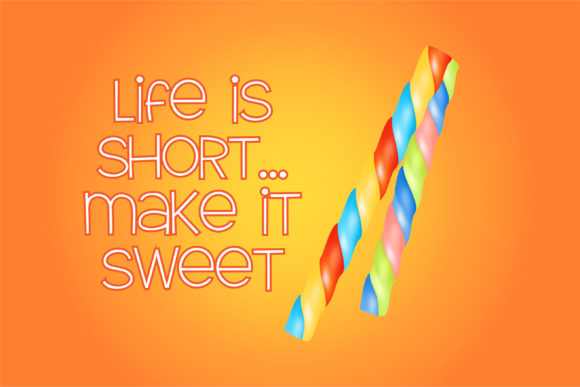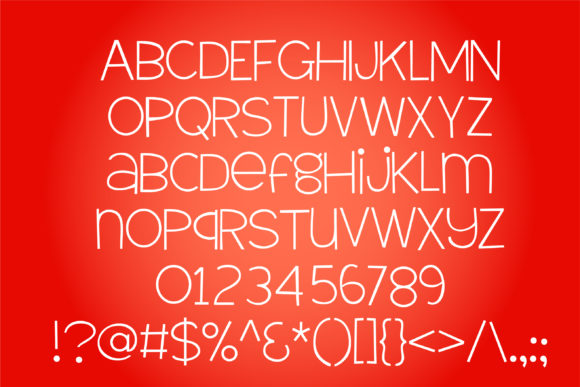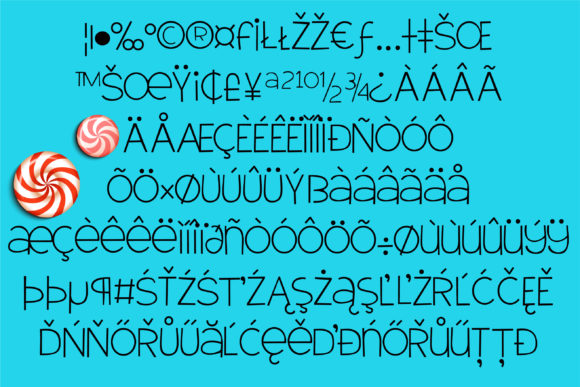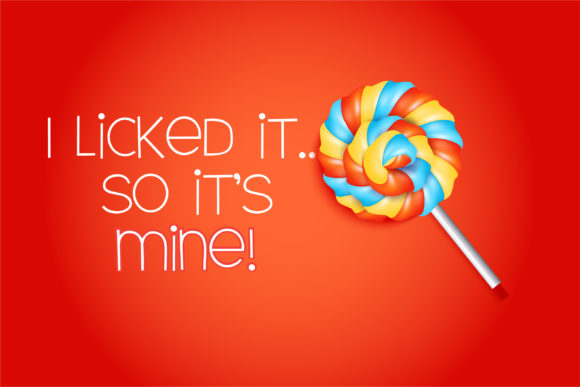
HomeScript FontsRazzle Cane Lite Font Script Fonts Razzle Cane Lite Font FacebookXPinterestWhatsApp Razzle Cane Lite Font Poster 2 Razzle Cane Lite Font Poster 3 Razzle Cane Lite Font Poster 4 Razzle Cane Lite Font Poster 5 About Razzle Cane Lite Font Razzle Cane Lite is a slightly whimsical sans serif font. Great for a variety of creative projects! DOWNLOAD ON CREATIVE FABRICAThis font is sold and delivered by Creative Fabrica. Font Canyon may earn a commission if you buy through this link. People also explored Yuwadee Lf Font Monogram Floral Font Hello Old Friend Font Heatstroke Font Cupcakes School Font Jumpheart Font Heronymous Kopos Font 355 0 TagsRazzle Cane Lite Font Previous articleBunny Honk FontNext articleCuff and Link Font LEAVE A REPLY Cancel reply Comment: Please enter your comment! Name:* Please enter your name here Email:* You have entered an incorrect email address! Please enter your email address here Website: Save my name, email, and website in this browser for the next time I comment. Personal Use Free BD Geminis Personal Use Free Read more about this font Peristiwa Font Personal Use Free Read more about this font Sileighty Personal Use Free Read more about this font Braindly Personal Use Free Read more about this font BLOG How to Install and Use Fonts on Windows, macOS, and Web Projects How to Install and Use Fonts on Windows, macOS, and Web Projects Fonts are a crucial part of design and branding. Whether you’re designing a... Elegant Wedding Invitation Fonts – Handwritten & Script Fonts Exploring Font Trends Best Fonts for T-Shirt Design – Top 2025 Picks